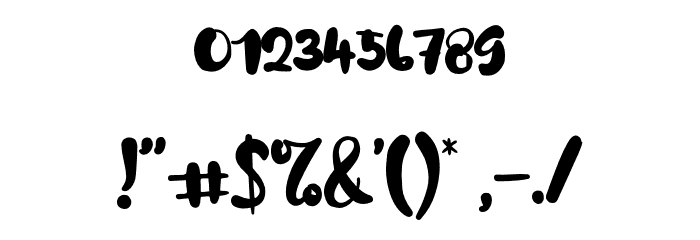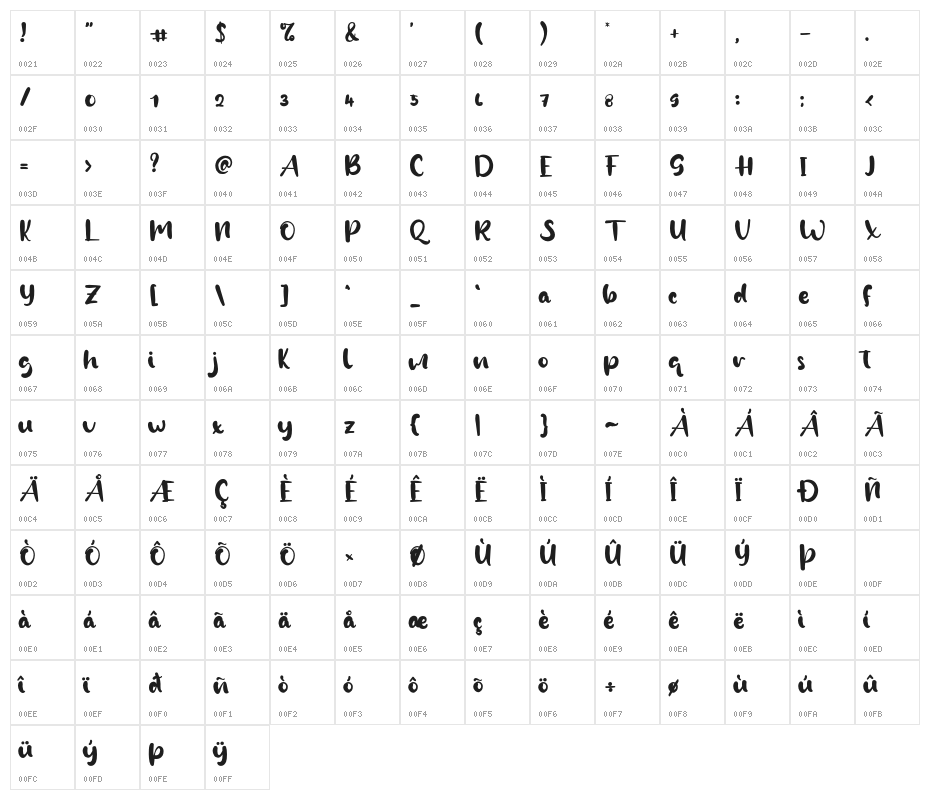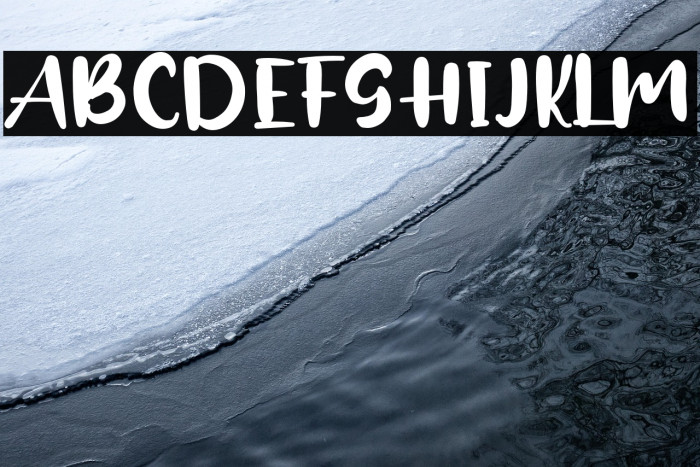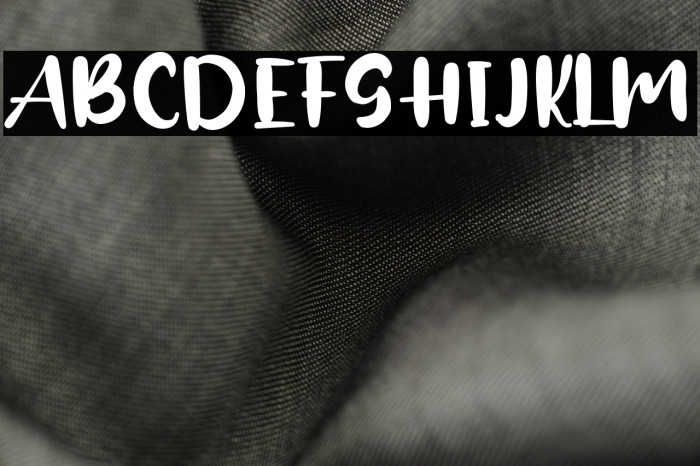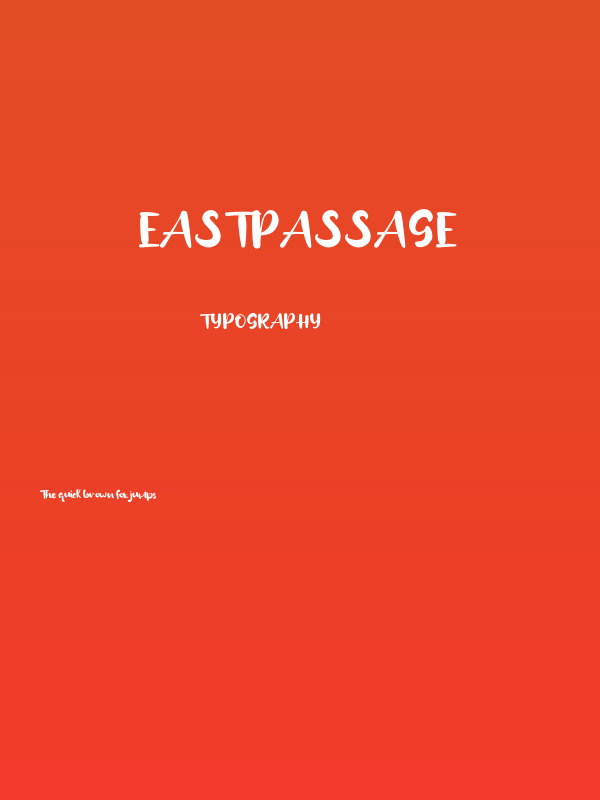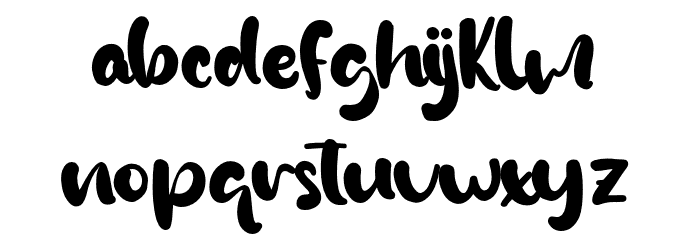
EastPassage Font
EastPassage Description
This font features a bold and expressive handwritten style with a playful and dynamic appearance. The letters are thick and rounded, giving a sense of warmth and approachability. The uppercase characters are slightly more structured, while the lowercase letters exhibit a more fluid and casual form. The numbers and special characters maintain the same lively and bold aesthetic, ensuring consistency across all glyphs. This font is ideal for projects that require a personal touch or a sense of creativity and fun. Its unique style makes it stand out, making it suitable for eye-catching designs.
| Proposed Projects | Ideal for greeting cards, playful branding, children's book covers, and creative posters. |